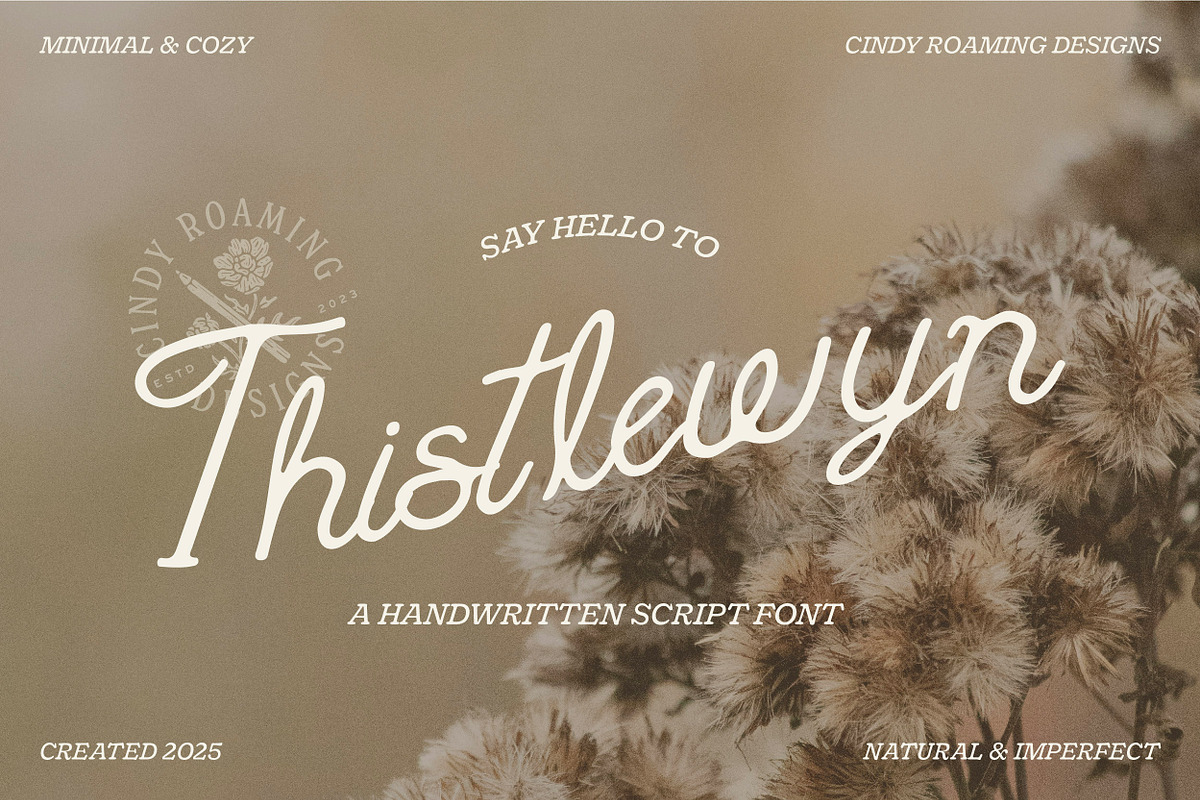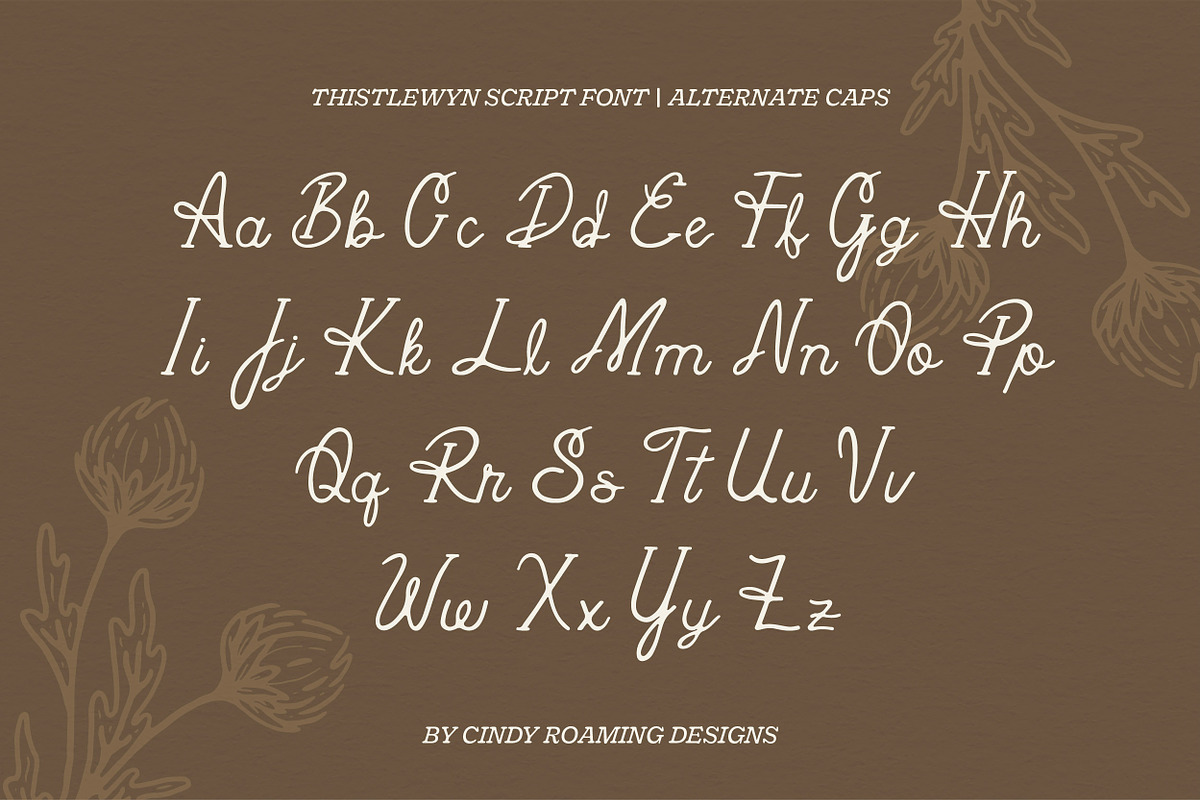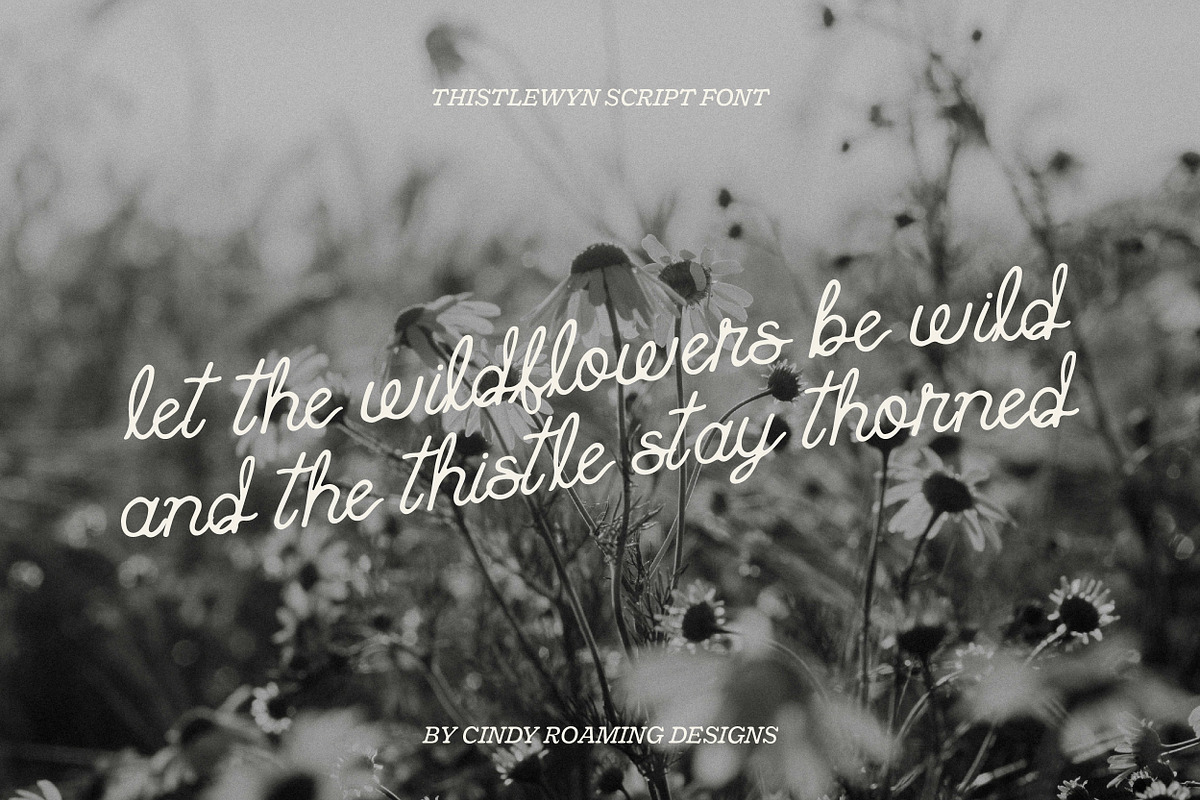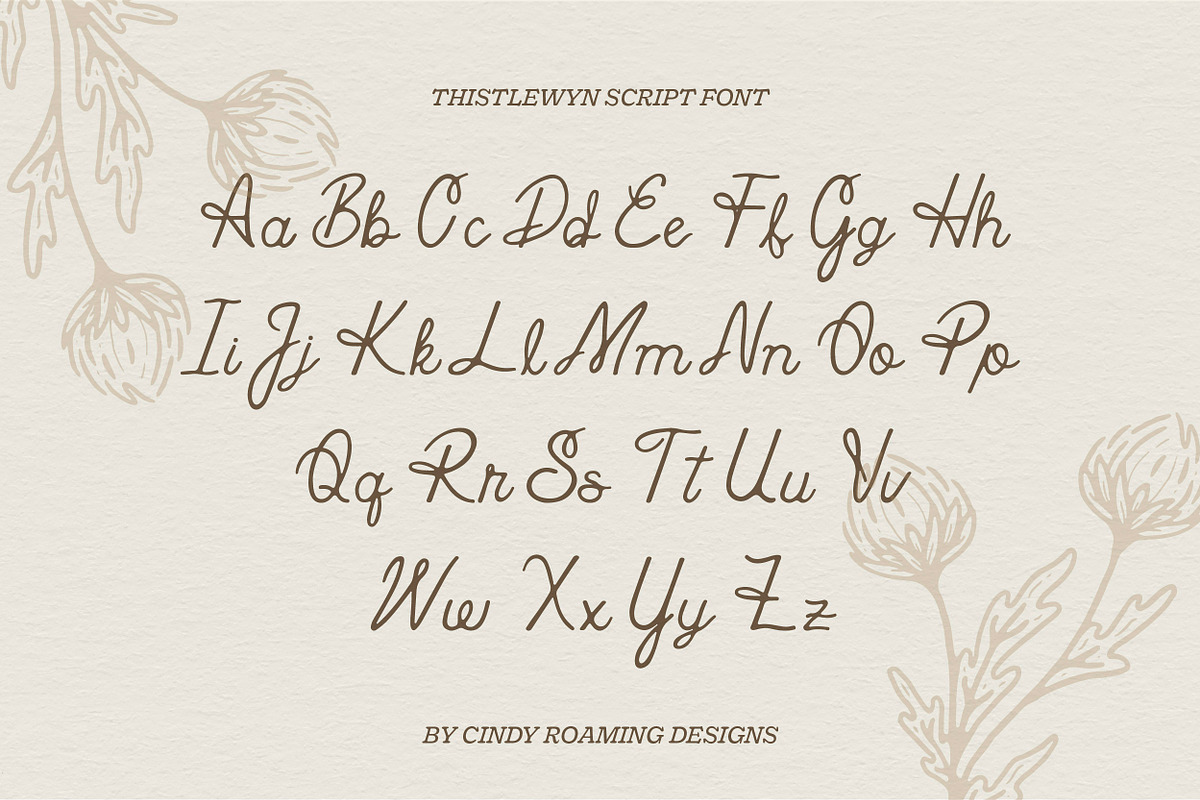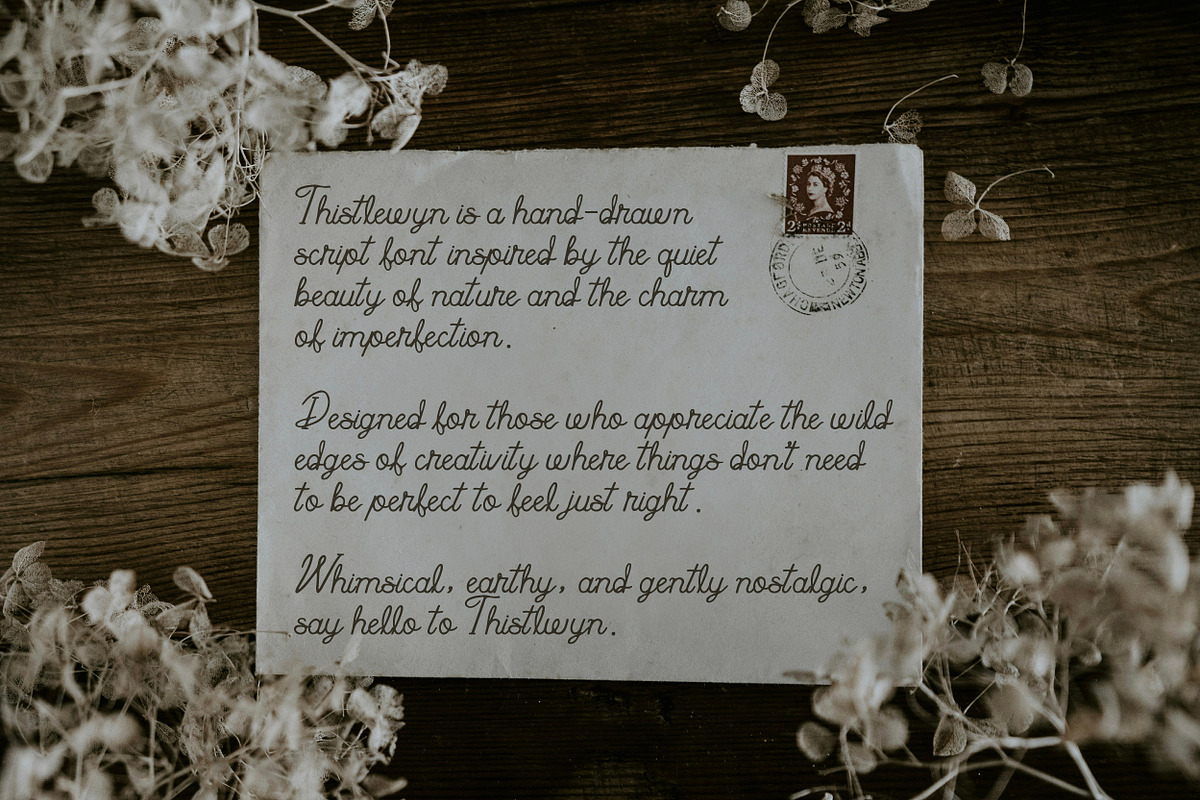
Thistlewyn by Cindy Roaming Designs
✹ Thistlewyn — A Handdrawn Script Font ✹
Thistlewyn is a handdrawn script font inspired by things that grow wild and imperfect — delicate vines, soft petals, quiet strength, and the occasional thorn. Rooted in nature and nostalgia, this typeface was made for creatives who love handwritten notes, vintage textures, and branding that feels a little whimsical and a little wild.
With its slightly uneven lines, gentle curves, and raw character, Thistlewyn brings warmth and personality to every project. Whether you're crafting a brand rooted in storytelling, designing wedding stationery, or creating soulful packaging, this font was made to grow with you.
Perfect for: ✹ Branding & logos ✹ Packaging design ✹ Wedding invitations ✹ Journals, quotes, and book covers ✹ Small businesses with a handmade, soulful, or nature-inspired identity